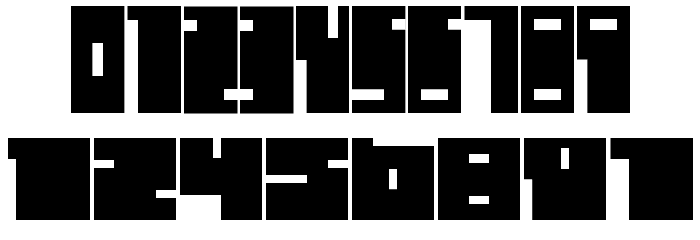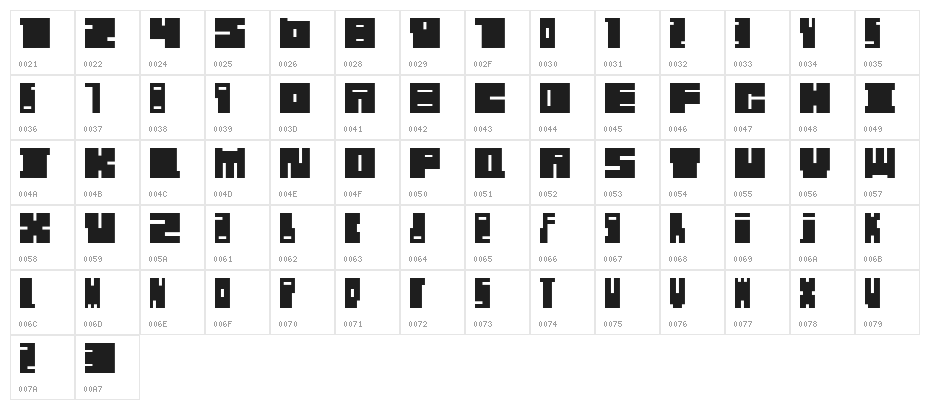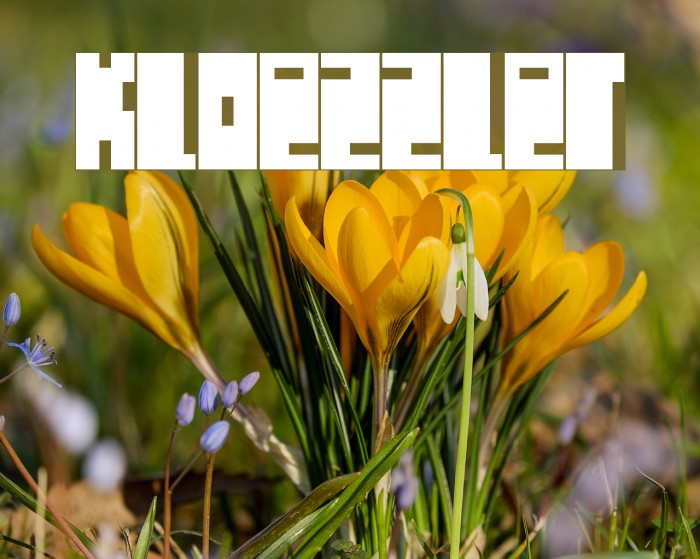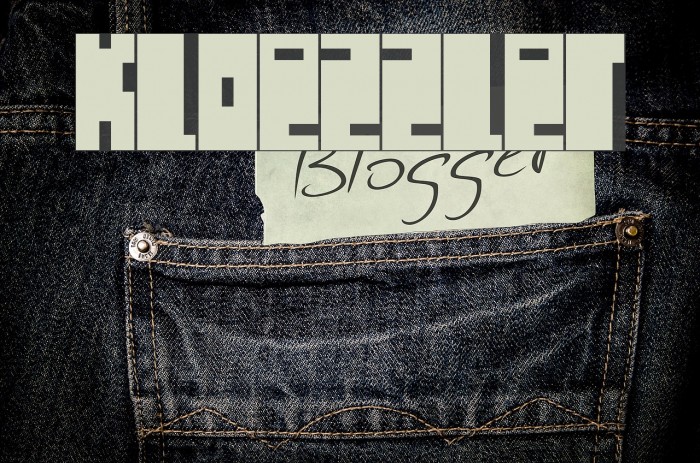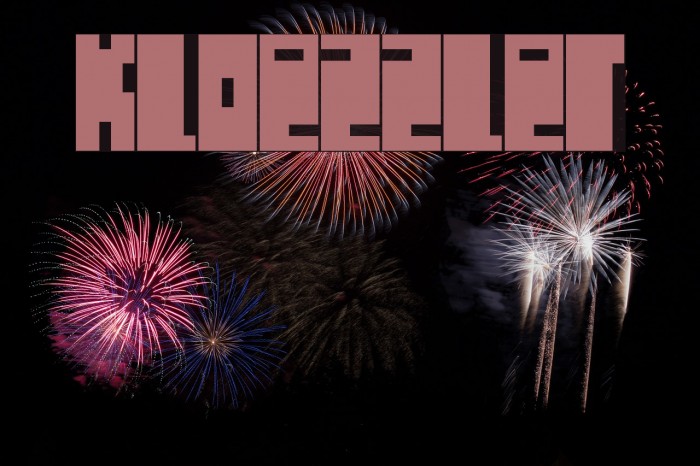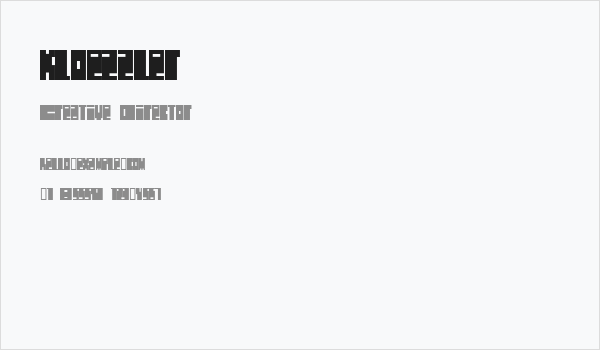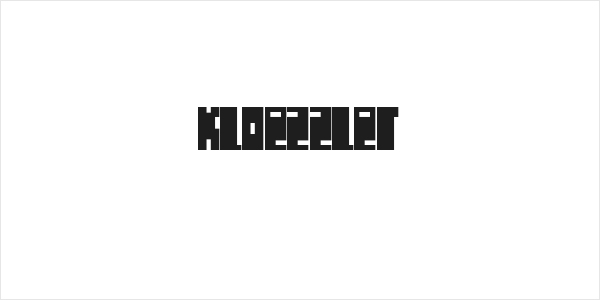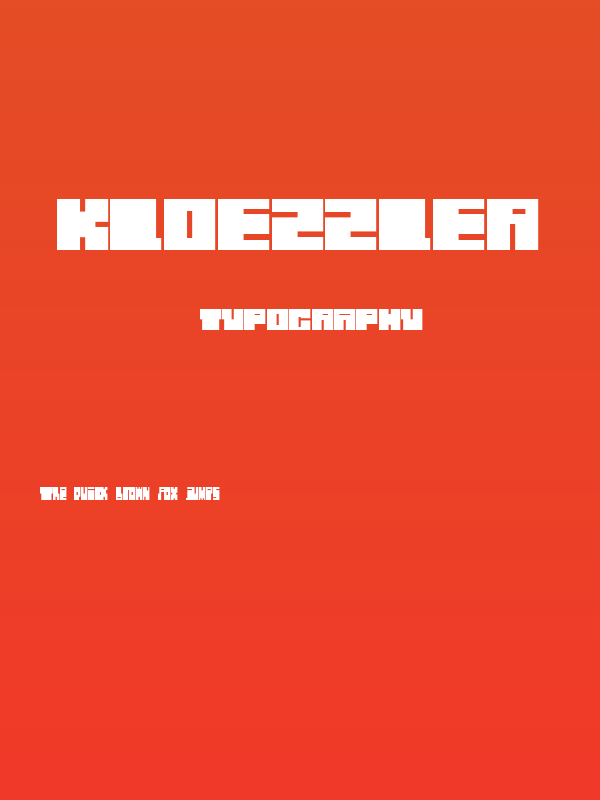
kloezzler Font
kloezzler Description
This font features a bold, geometric design with a blocky and robust appearance. Each character is constructed with thick, uniform strokes that create a strong visual impact. The uppercase and lowercase letters maintain a consistent width, giving the font a monospaced feel, although it is not strictly monospaced. The numbers and special characters follow the same design principles, ensuring uniformity across all glyphs. The font's style is reminiscent of digital or pixelated typefaces, making it suitable for modern and tech-oriented designs. Its high contrast and solid structure make it highly legible, even at smaller sizes.